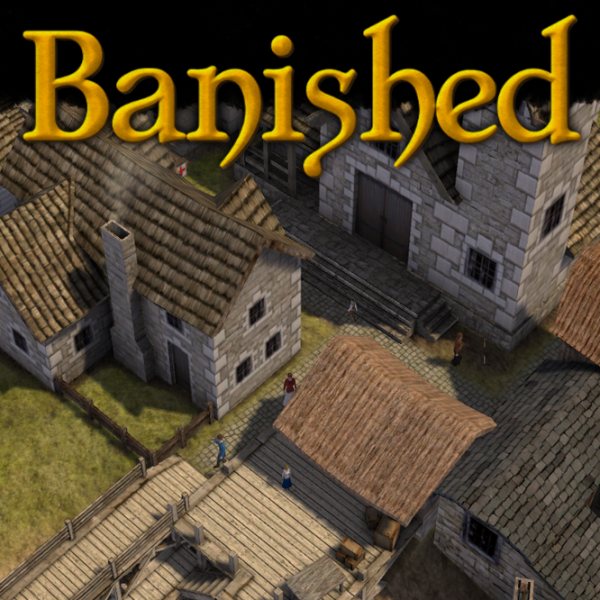
Fonts in UseBanished is a city-building strategy game where players guide a group of outcasts to establish and sustain a self-sufficient settlement in a harsh, unforgiving environment, balancing resources, population, and survival.
It is likely that the game's logo seems to be inspired by Chesterfield, an art nouveau-inspired typeface created by British designer Alan Meeks. This commercial font can be downloaded here.